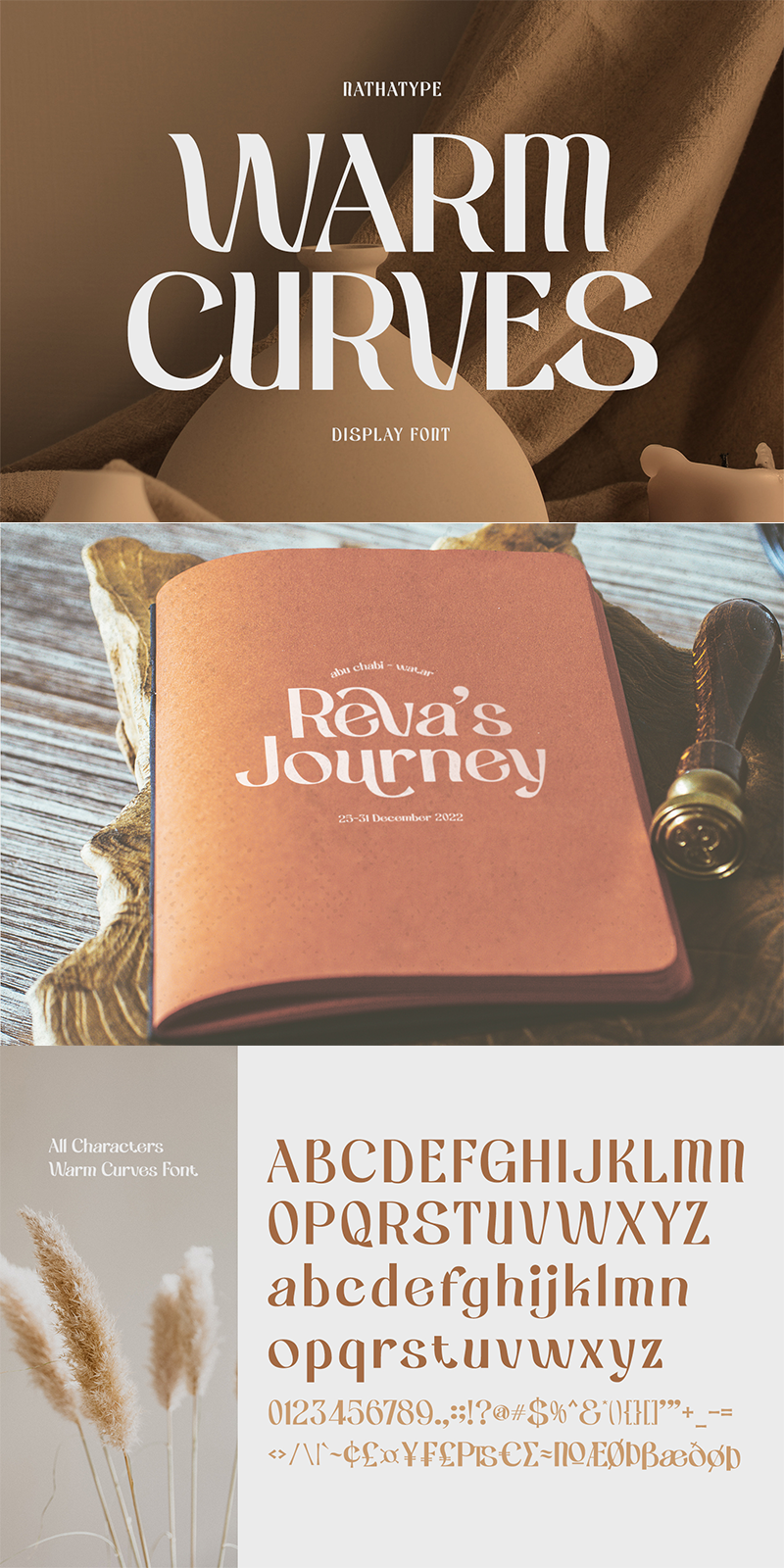
Warm Curves Font
Designed by Natha Type
About Warm Curves
Warm Curves is a display serif font to meet your needs. This elegant, modern, legible display serif font is perfectly applicable to formal, serious contents. It looks more stylish and has its own protruding characters to strengthen the points delivered.